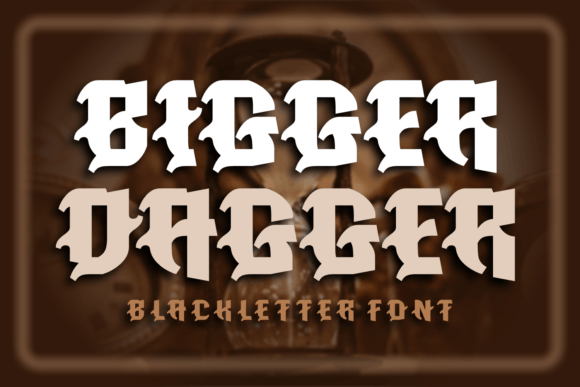
Unlock the Power of Bigger Dagger Font
Have you ever been brainstorming a new design project and suddenly, a spark of inspiration hits you? The perfect idea strikes, and you can’t wait to bring it to life. For many designers, that moment is all about finding the right font to set the tone and capture attention. That’s where Bigger Dagger Font comes in – a bold blackletter font that embodies the essence of strength, drama, and a fierce Gothic aesthetic.
This striking font is perfect for designers who want to create a bold, confident look that demands attention. With its heavy, angular strokes and sharp edges, the Bigger Dagger Font is an ideal choice for branding, album covers, posters, logos, and headlines where a strong visual presence is key. Whether you’re a seasoned designer or just starting out, this font is sure to make your work stand out from the crowd.
Bigger Dagger Font Key Features
- Unique Characteristic: Bigger Dagger Font features a unique, bold, and dramatic design, making it ideal for use in headlines, titles, and other attention-grabbing text elements.
Bigger Dagger Font Review
I recently had the chance to work with the “Bigger Dagger Font” and I must say it’s a mixed bag. Let’s start with what works well: ✨ The font’s bold and edgy design is perfect for creating a statement. It’s great for headings and titles where you want to draw attention. The font also has a wide range of weights and styles, making it easy to customize to fit your needs. Another advantage is its readability, even at smaller sizes.
Now, let’s talk about the limitations: ⚠️ The font can be a bit too dramatic for some designs, and it might not be the best choice for more subtle or minimalist projects. Additionally, some users might find the font’s design a bit too aggressive or overwhelming. It’s also worth noting that the font’s design can be a bit too “in your face,” making it difficult to pair with other fonts or design elements.
Design Recommendations
- Use the font for headings and titles to create a bold statement.
- Pair the font with more subtle or neutral fonts to balance out the design.
- Use the font in moderation, as it can be overwhelming in large quantities.
- Experiment with different weights and styles to find the perfect fit for your design.
Bigger Dagger Font: A Practical Application Guide
Tips for Getting the Most Out of Bigger Dagger Font
For best results, use Bigger Dagger Font for titles, headings, and emphasis. It’s particularly effective for creating bold, attention-grabbing text. Experiment with different font sizes and styles to achieve the desired effect.
Bigger Dagger Font is ideal for:
– Creating eye-catching titles and headings
– Designing bold and attention-grabbing text
– Adding a touch of elegance and sophistication to your designs